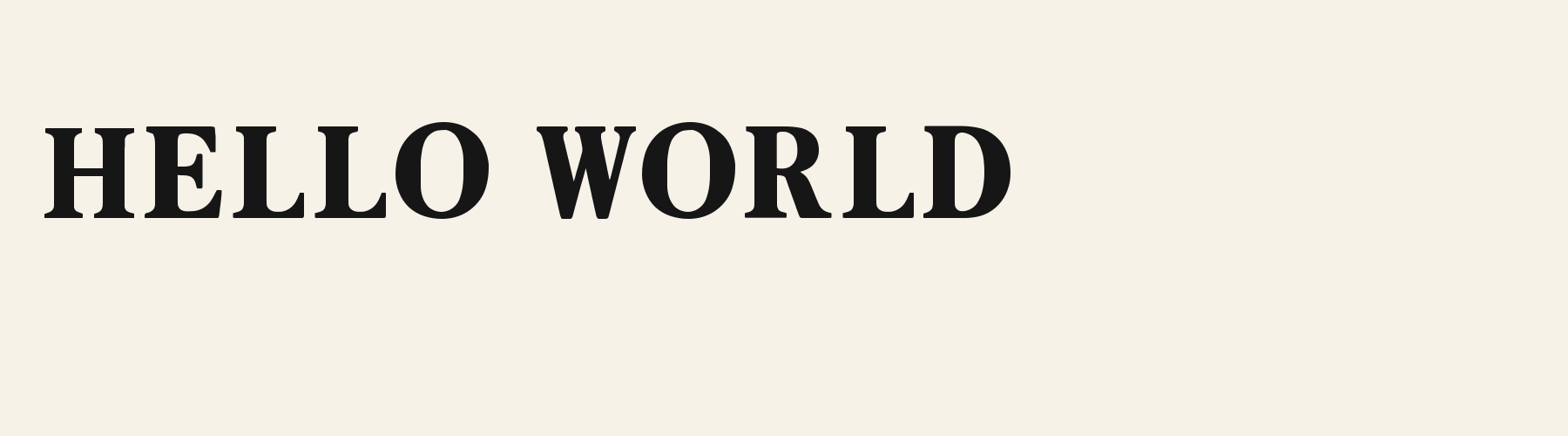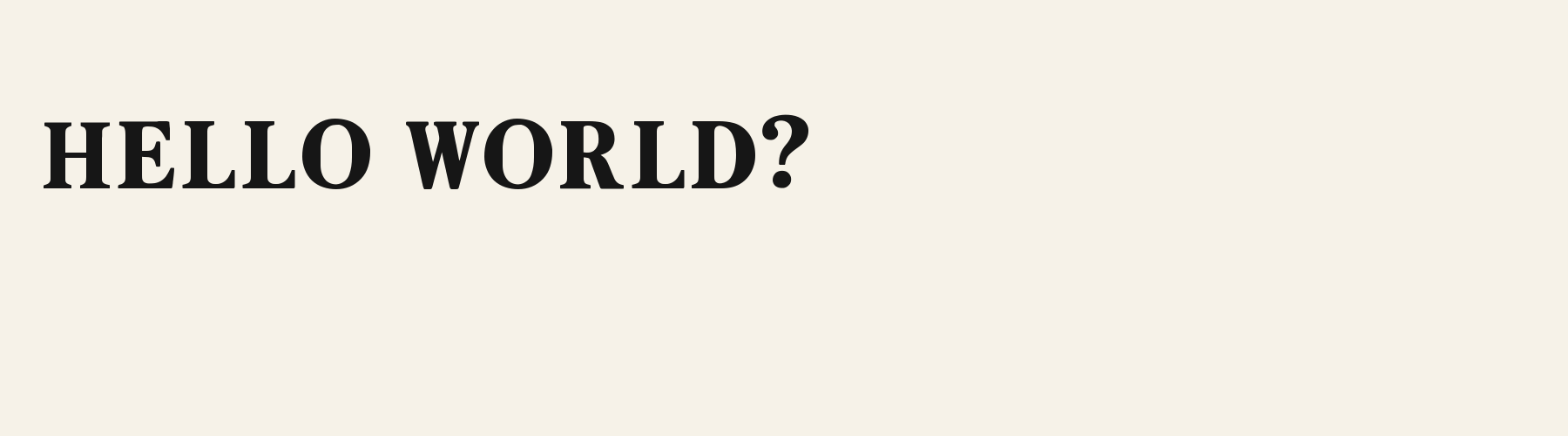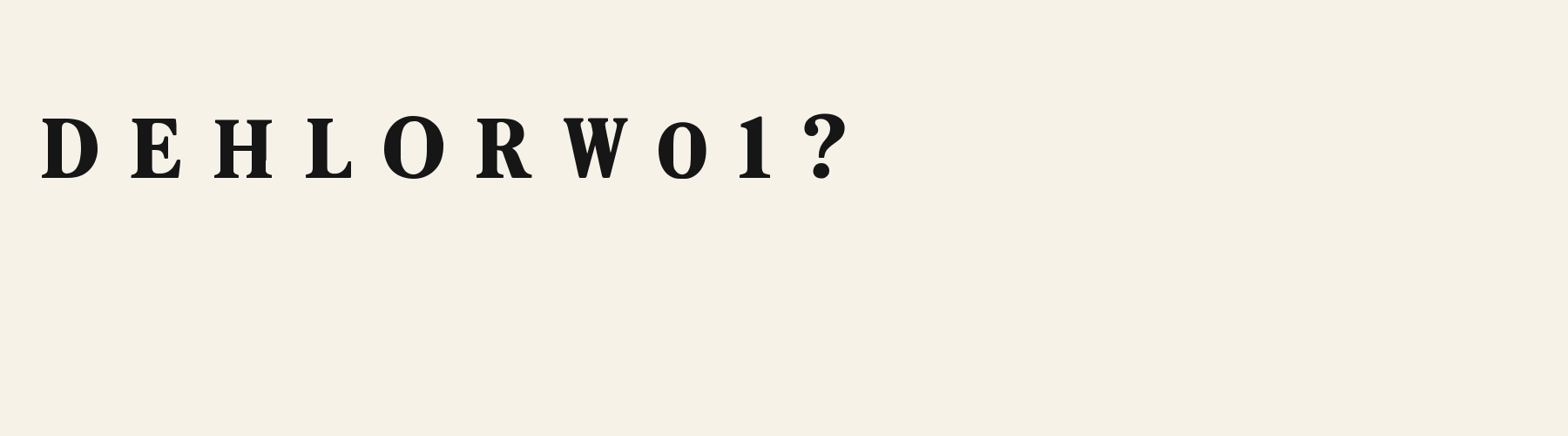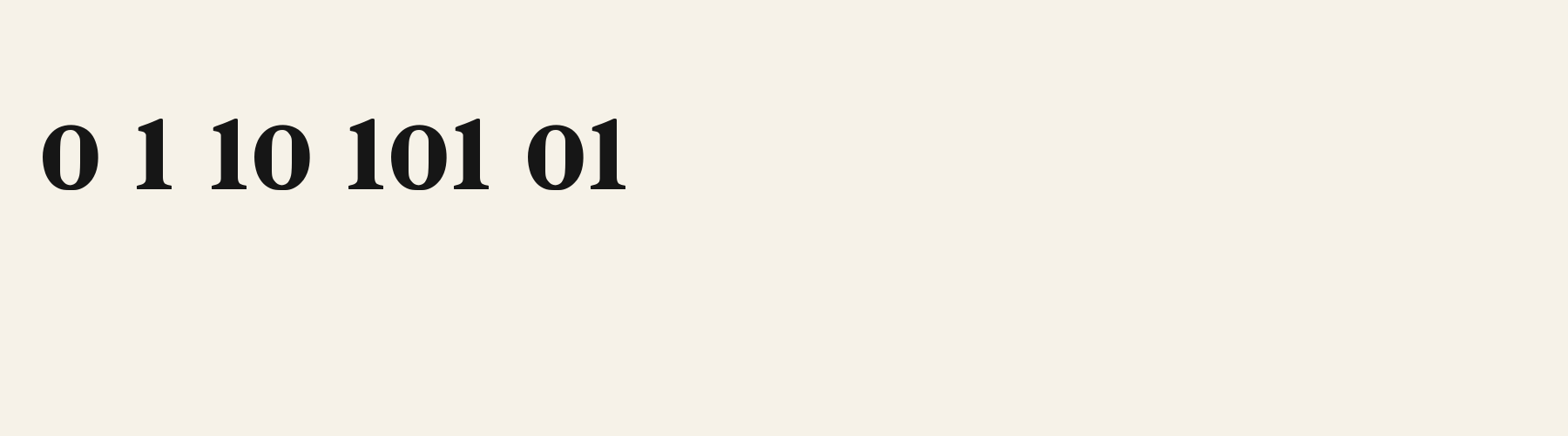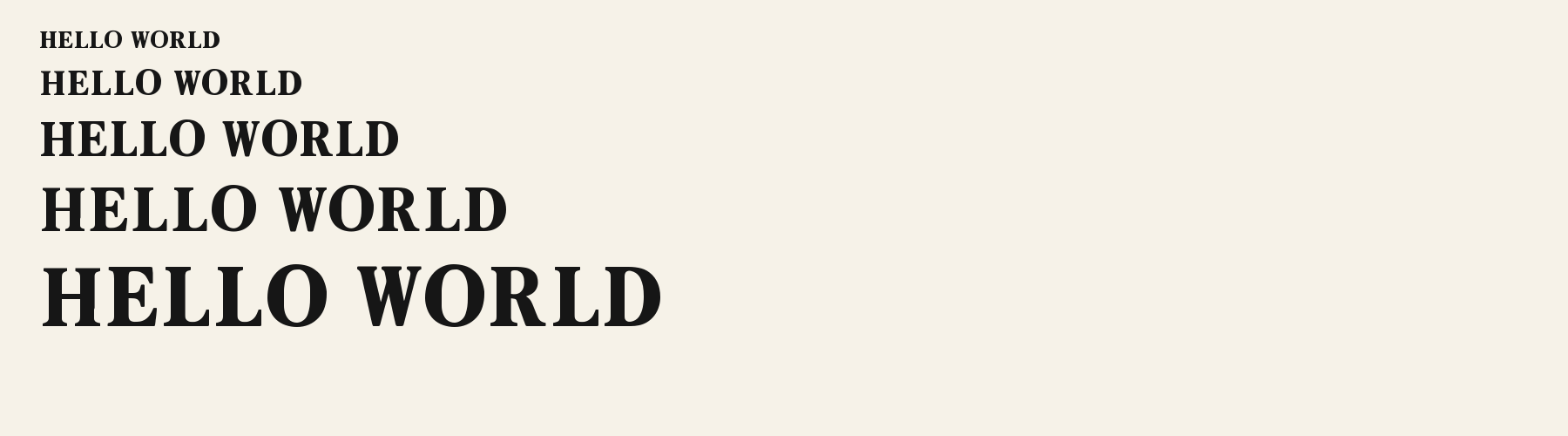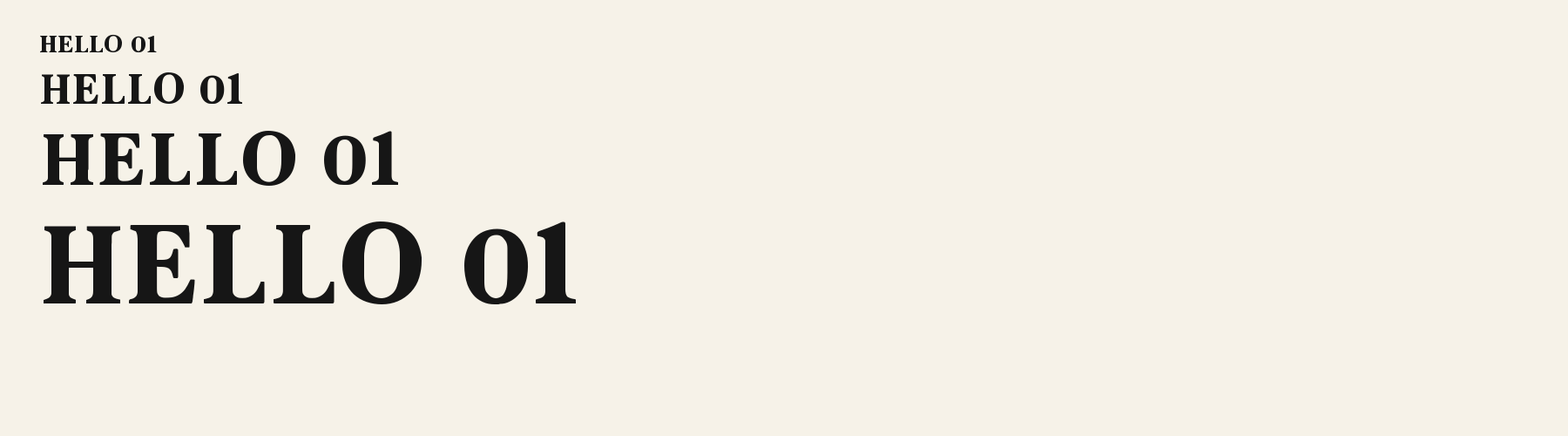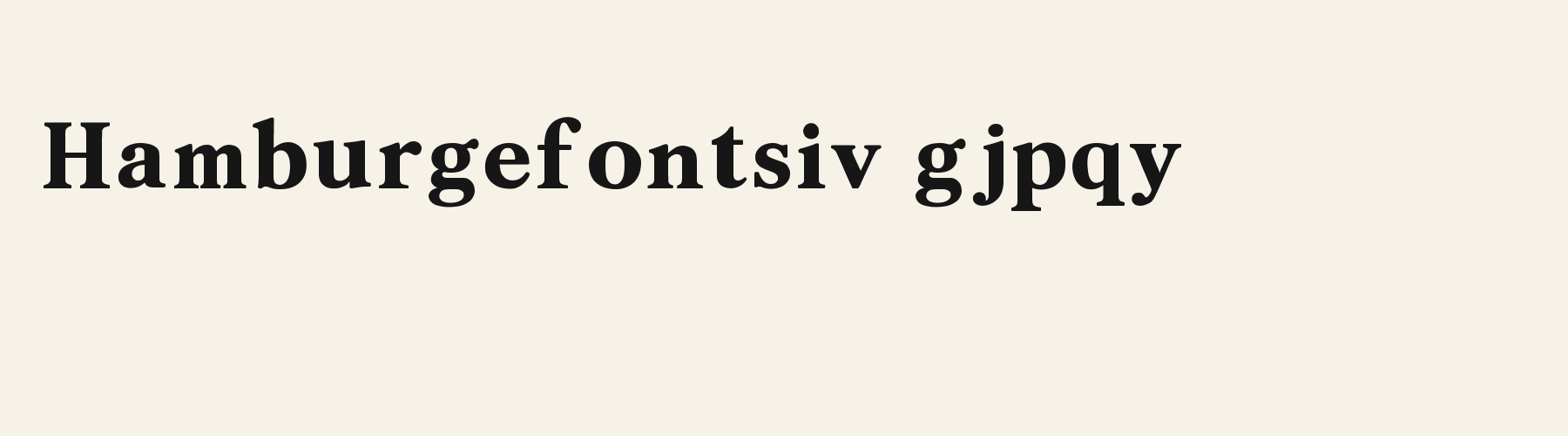
Pretty Pearl Serif
SerifPretty Pearl Serif
Brush Roman Press is a book covers, packaging labels, and retro posters. Blunt pressure-cut strokes with restrained texture inside the silhouette. Best for book covers, packaging labels, and retro posters.
Includes all 95 printable Basic Latin characters and 148 glyphs in total.
Verified language coverage: English (Basic Latin)